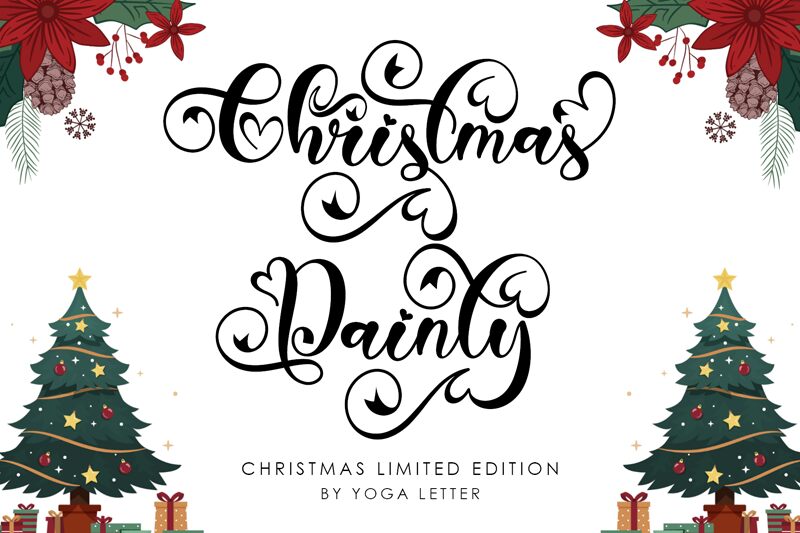
Christmas Dainty font by Yoga Letter is a free font that brings with it the ultimate holiday feel. It’s expressive, ornamental, elegant, decorative, and festive, embodying a flowing, sophisticated, and artistic essence.